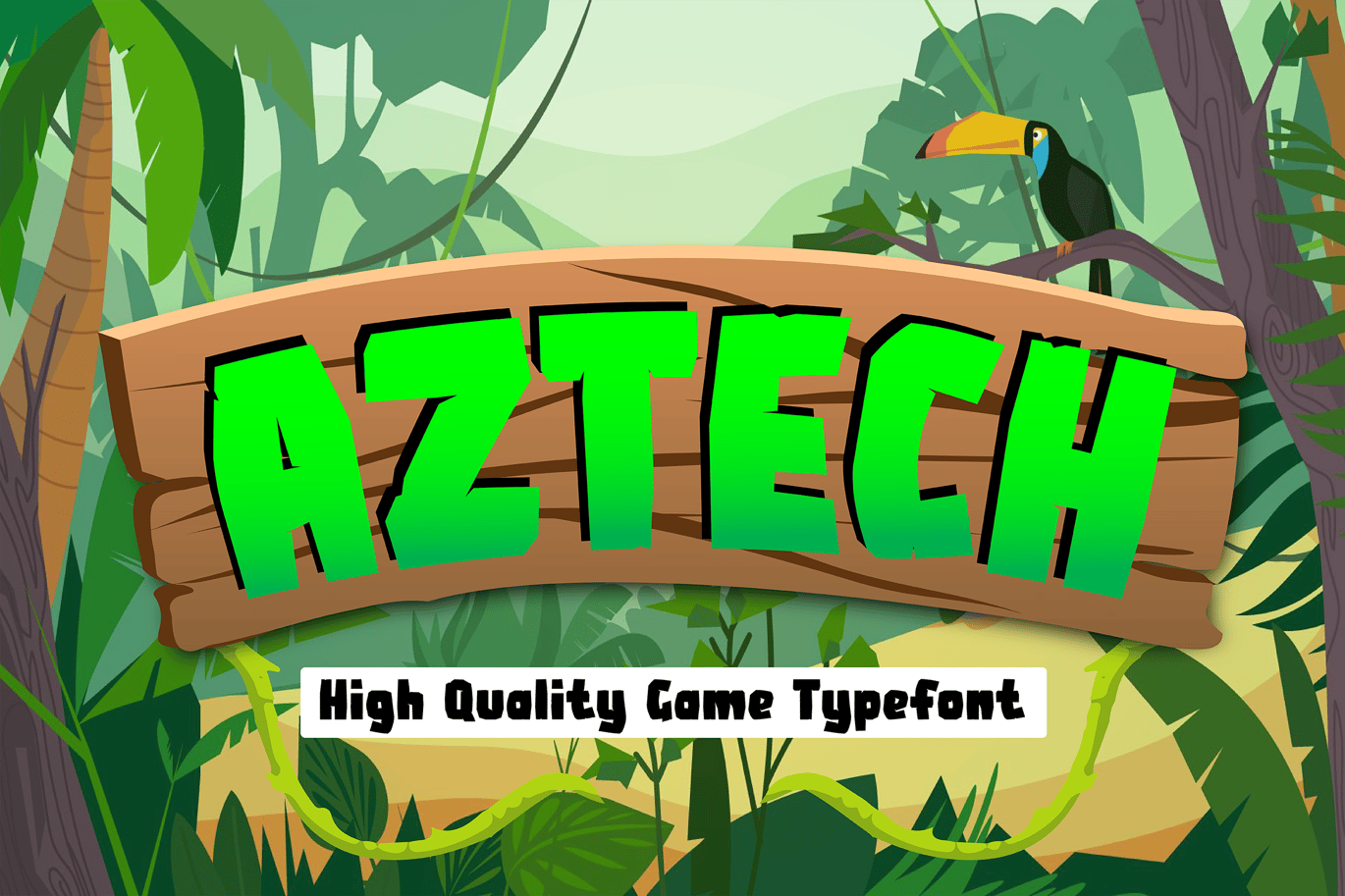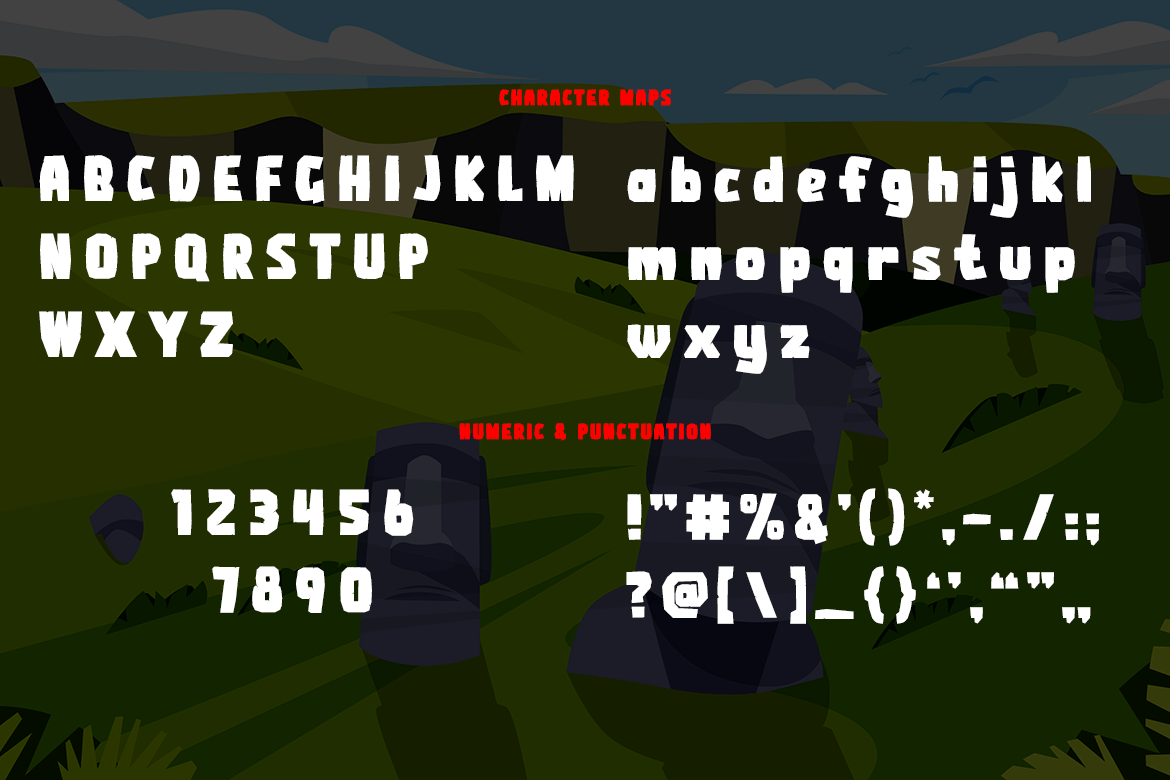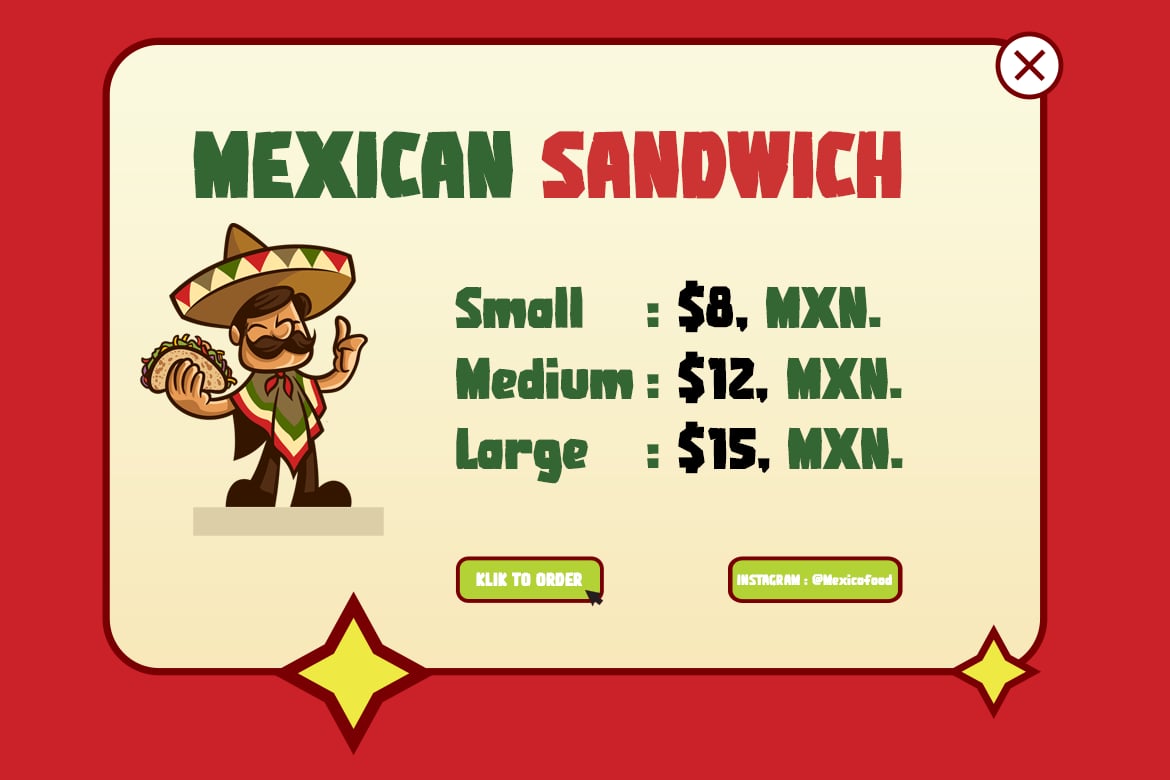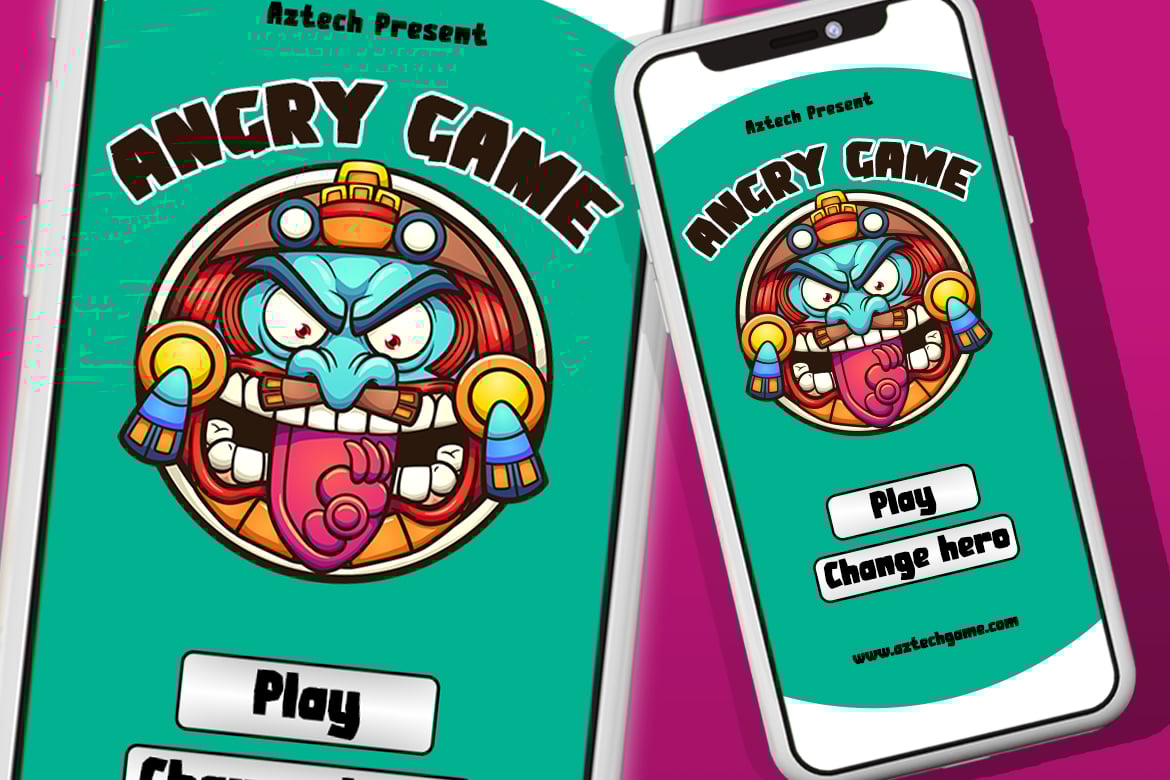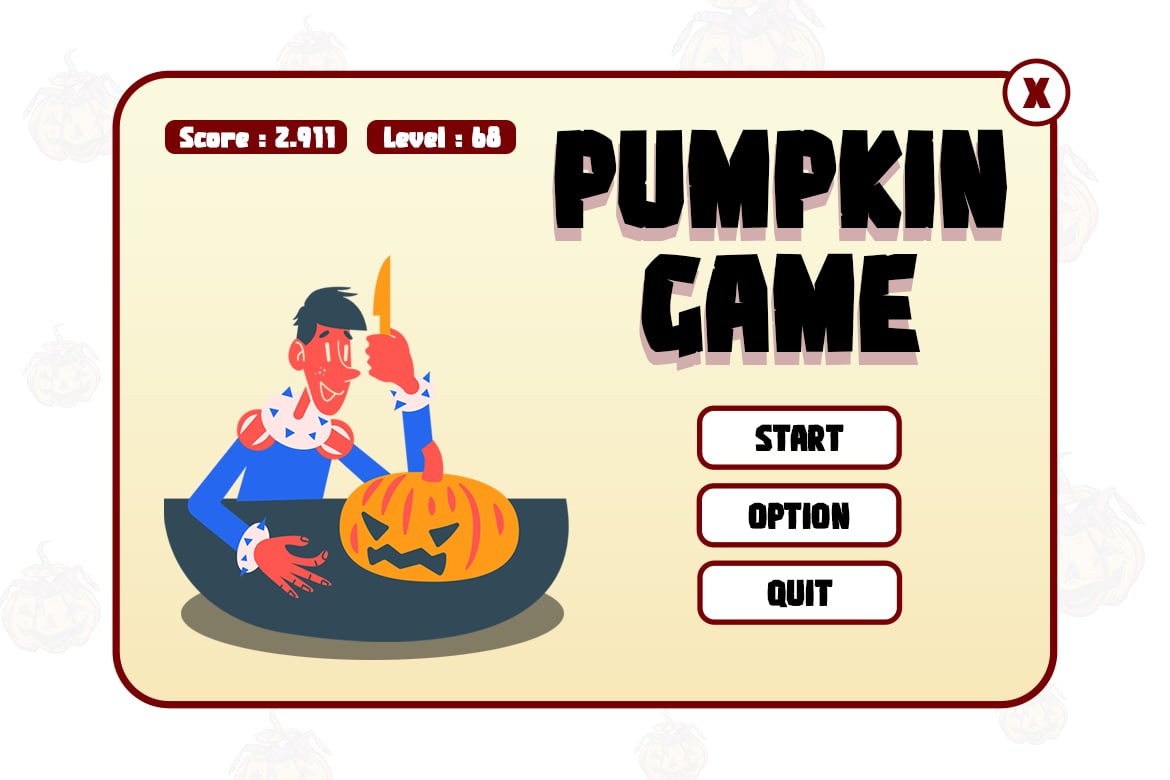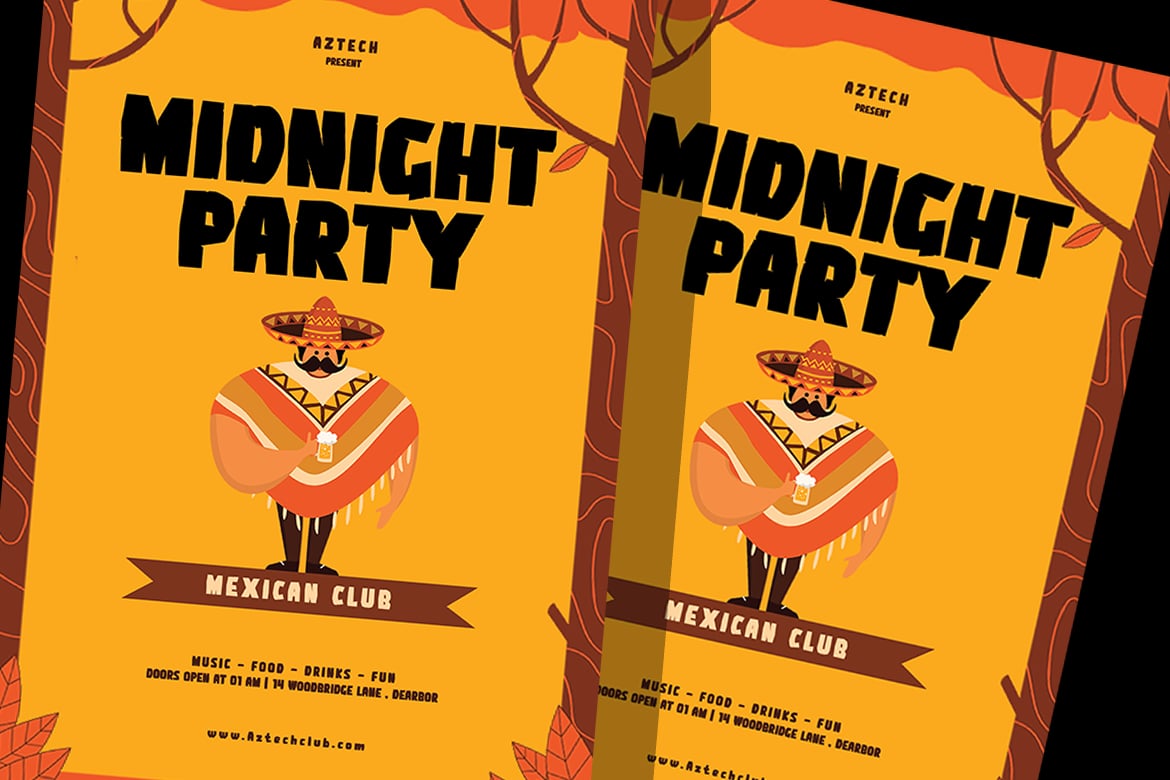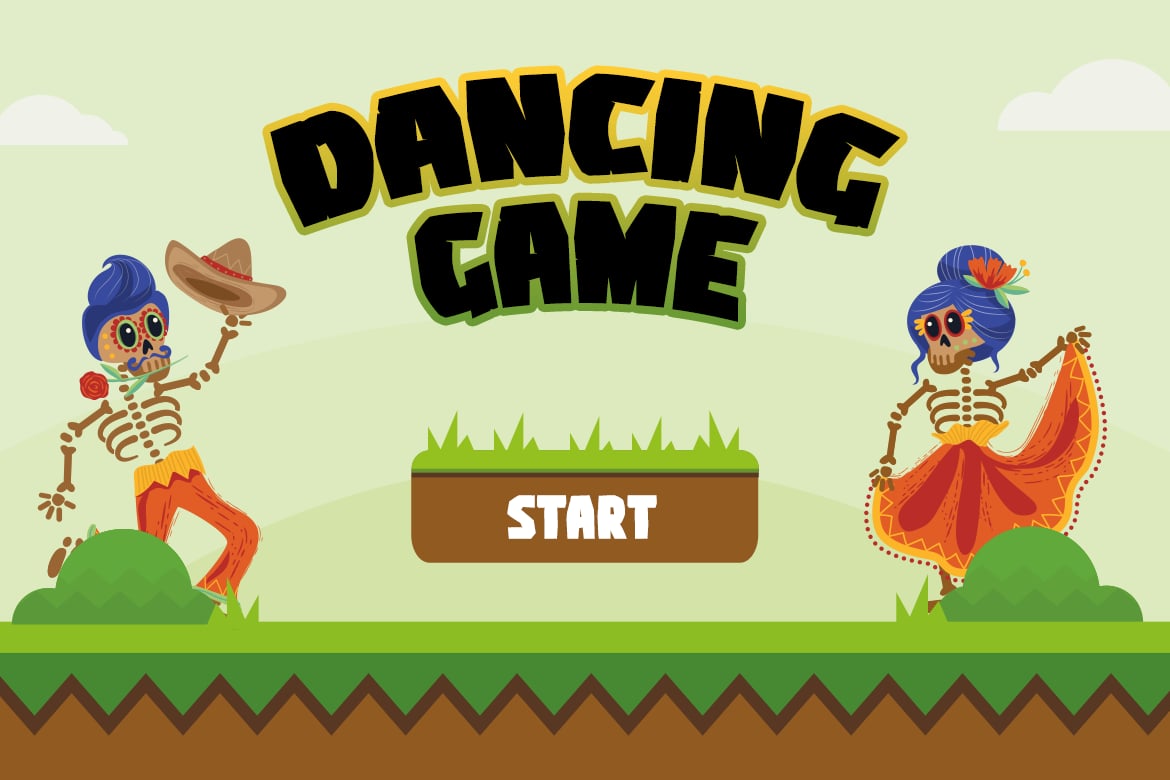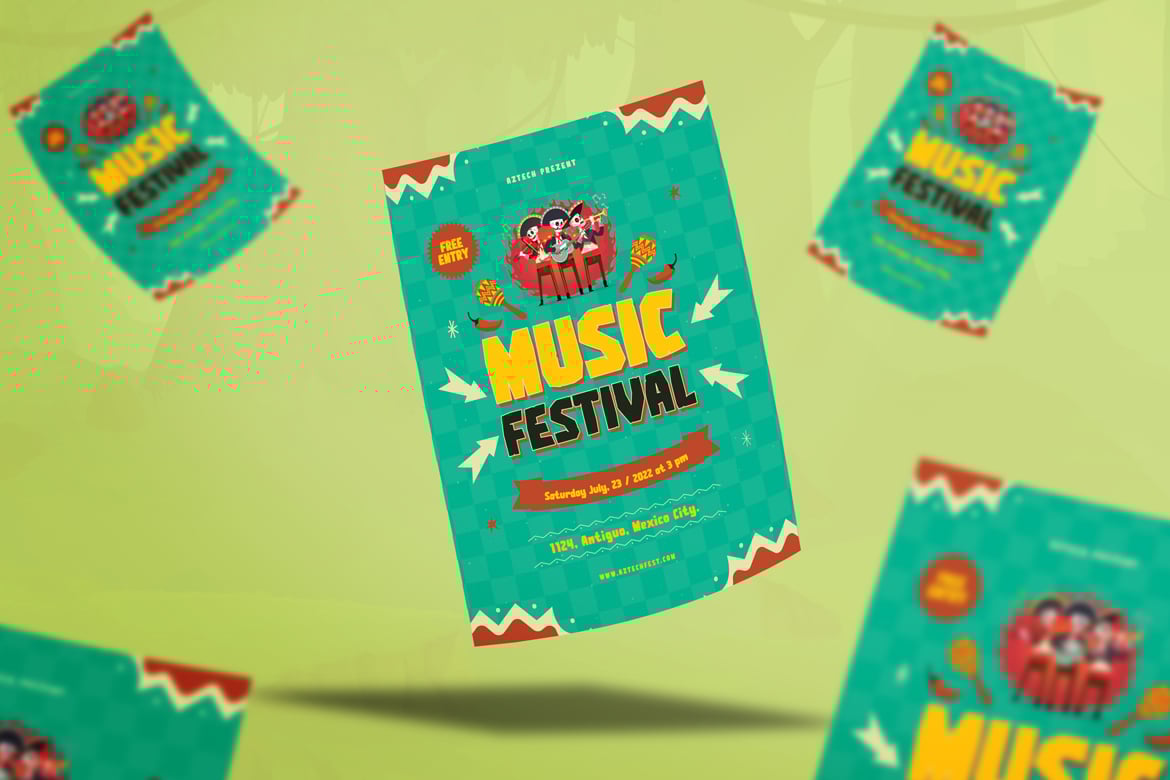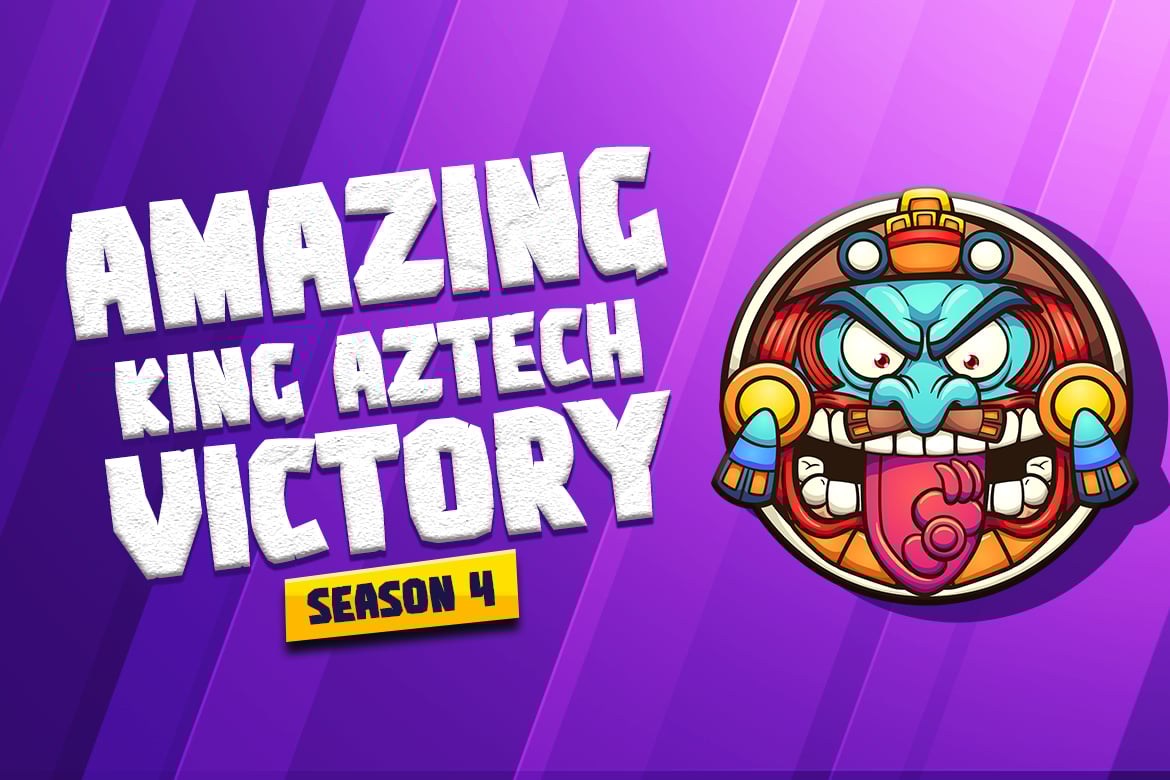
Aztech – Ethnic Gaming Font
An ancient technology is coming to the modern era. Aztech will be the leader of any adventurous and mistery game that children will play.
Suit perfectly for acient and mistery books market, online games, teens event poster, school supplies font, poster, movie title, youtube covers, youtube thumbnails, social media page covers and so on…